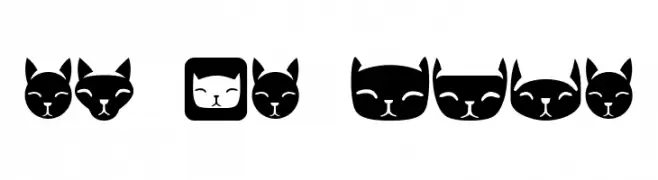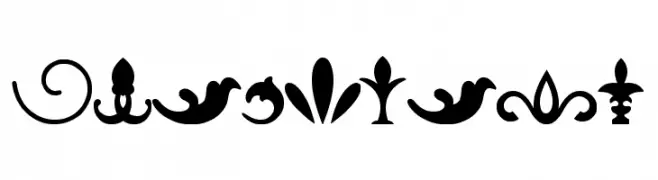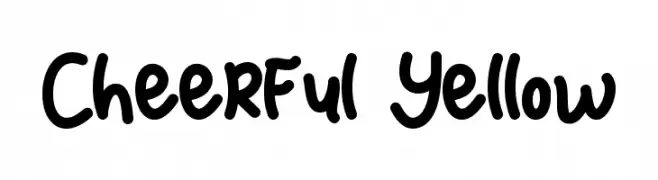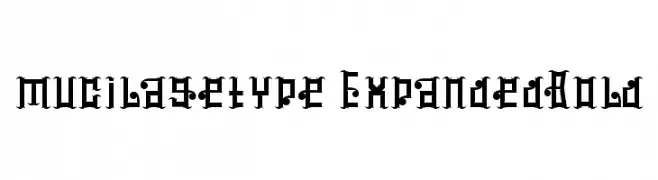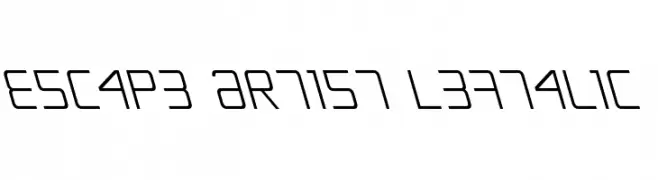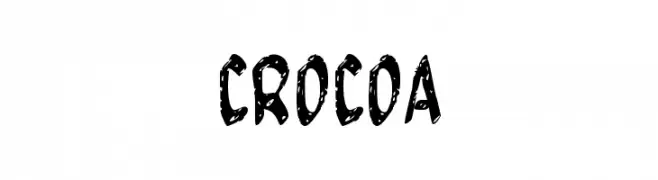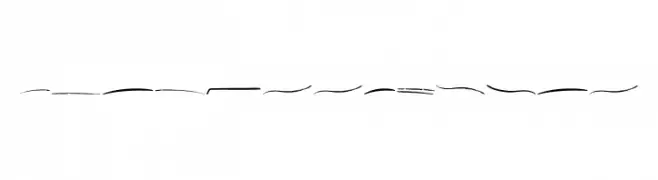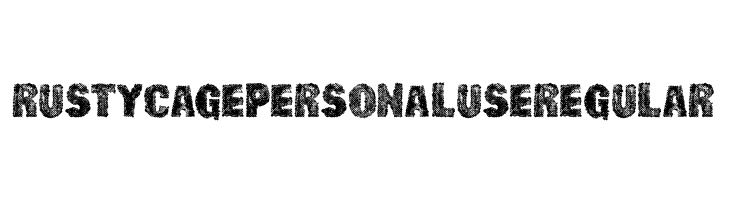
A decorative font featuring unique cat faces in square shapes.
Ornate decorative elements with vintage and classical motifs.
A playful, bold font with rounded, bubbly characters and a whimsical charm.
A futuristic, angular font with sharp, geometric shapes.
A bold, expanded blackletter-style font with intricate serifs and gothic flair.
A bold, playful font with dynamic, patterned characters.
A modern, geometric font with a leftward slant and a sleek, technical appearance.
A modern, medium-weight sans-serif font with a clean and slightly condensed style.
A hand-drawn, artistic font with uneven strokes and a dynamic, chaotic style.
A bold, hand-drawn font with a textured, artistic style.